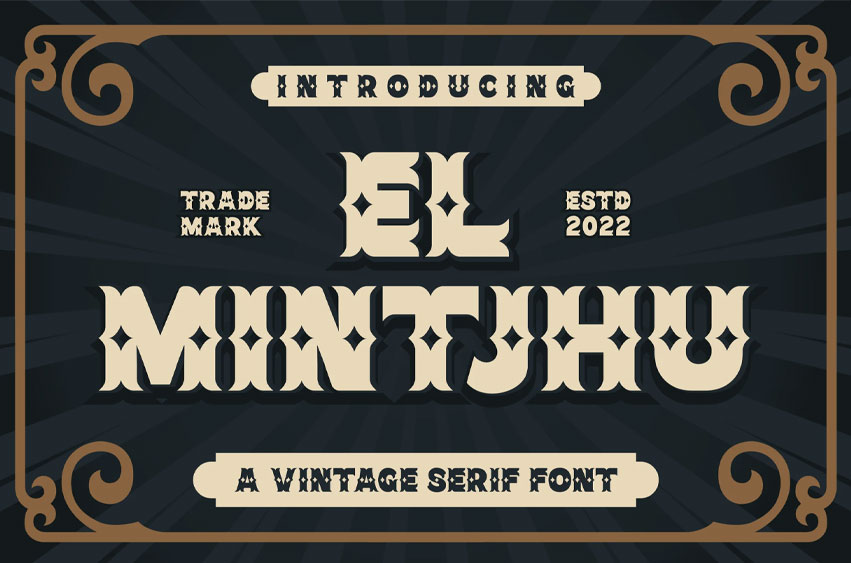
El Mintjhu Font is a Modern Serif Font, El MintjhuVintage Serif Font a Inspiring from vintage style typography. This font is perfect for a design that makes it more attractive and playful. made with a very good level of aesthetics making this font suitable for book cover, poster, packging, merchandise, logotype and much more.